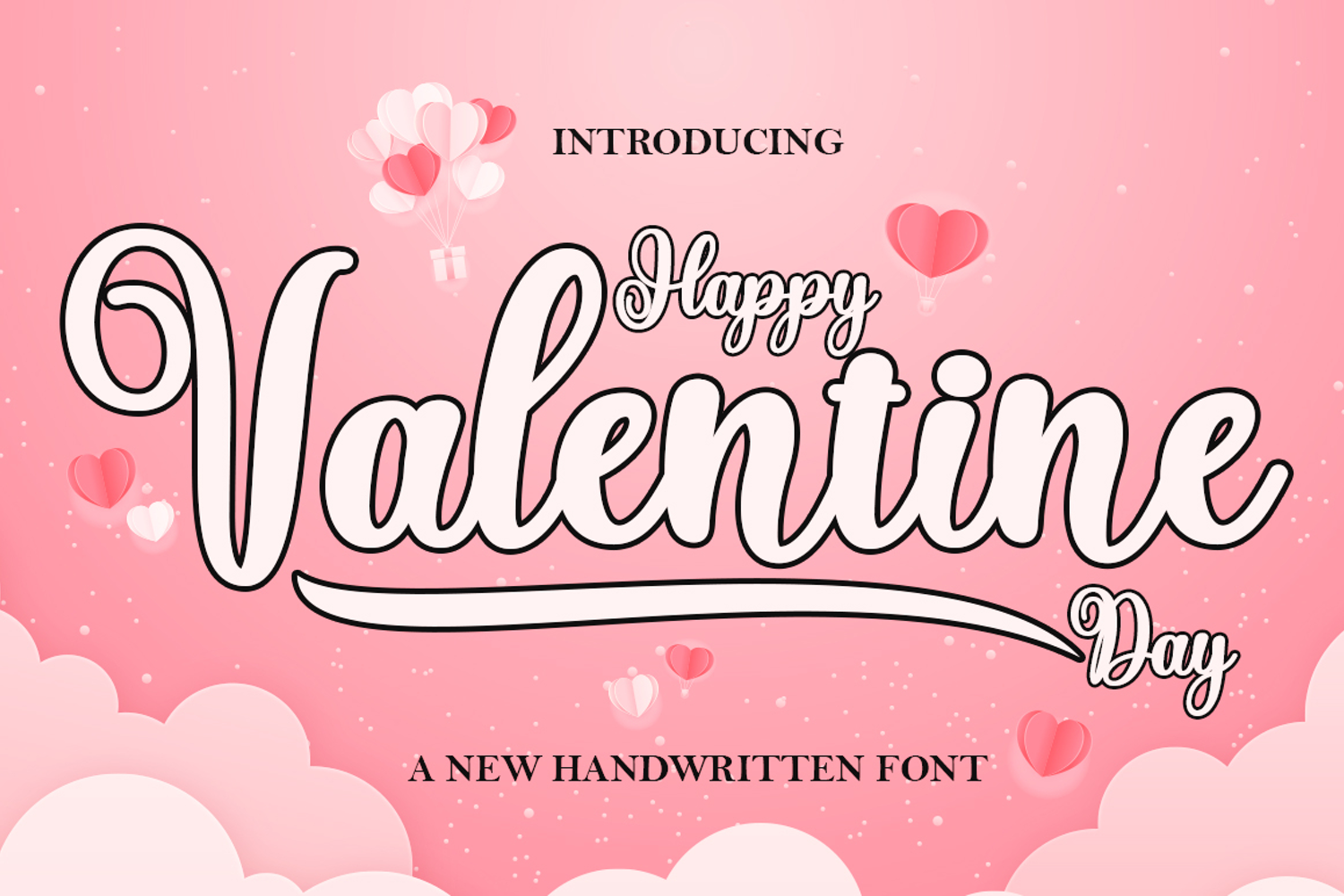
Happy Valentine Day
Happy Valentine Day is a handwritten font featuring exquisite character changes, a classic decorative copperplate script with a modern twist, meticulously designed for an elegant style.
Happy Valentine Day is appealing because it's delicate, clean, feminine, sensual, glamorous, simple, and highly legible, thanks to its many luxurious letter connections. This classic style is perfect for various formal applications such as invitations, labels, restaurant menus, logos, fashion, makeup, stationery, novels, magazines, books, greeting/wedding cards, packaging, labels, or any type of advertising need.